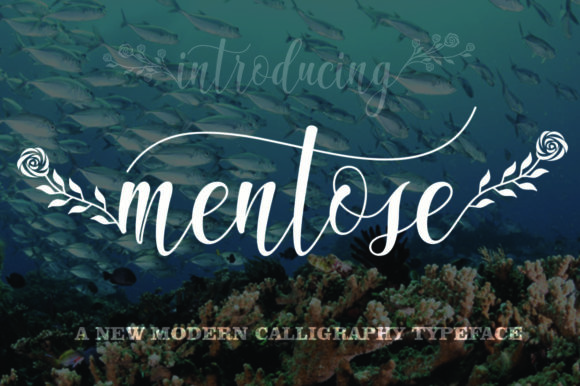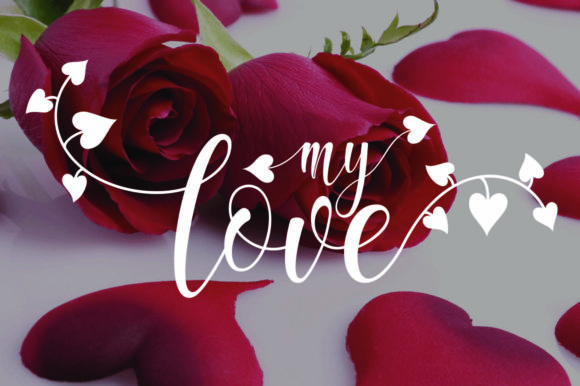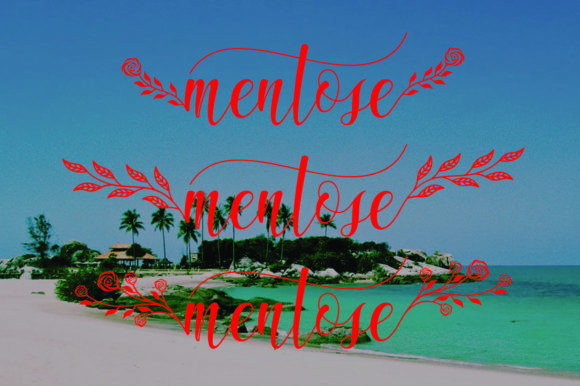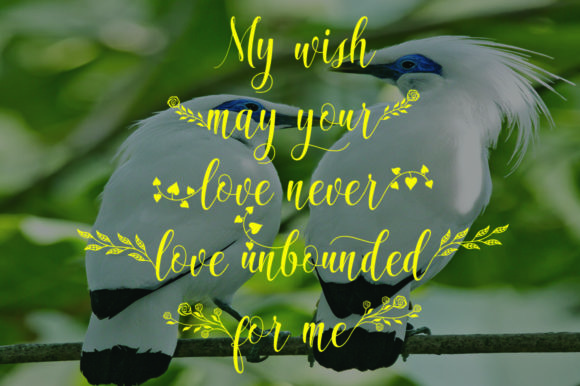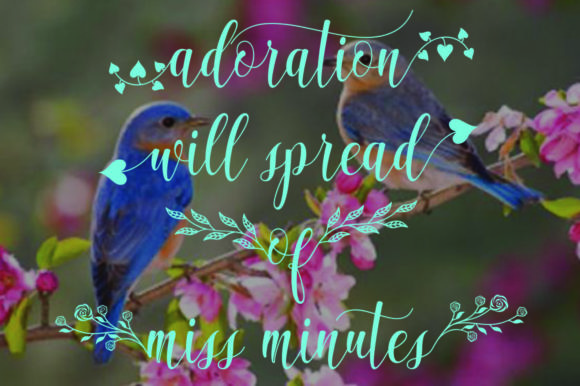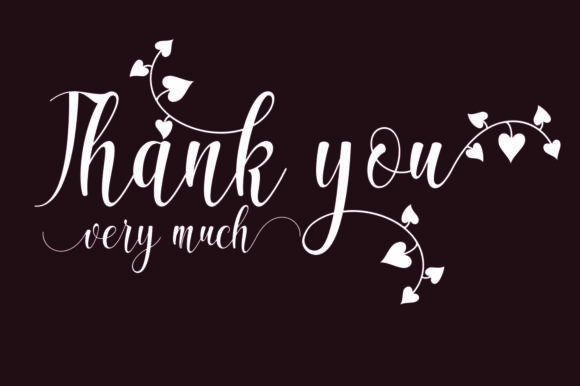
Mentose Font
About Mentose Font
Mentose is a fun and playful handwritten font with a sophisticated, botanical feel. It will add an authentic and organic touch to any design project!